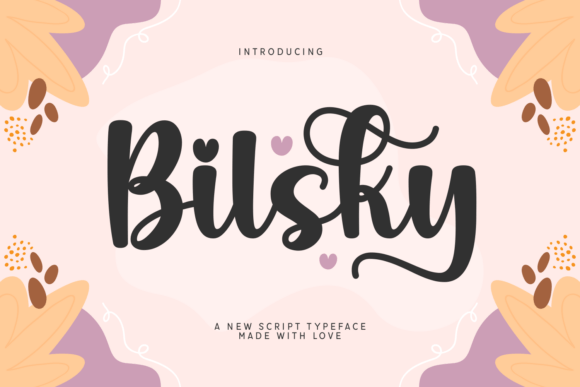
The Bilsky Font: A Bold and Lovely Script to Elevate Your Designs
I’ll never forget the moment I stumbled upon the Bilsky font. I was working on a wedding invitation project for a client who wanted something that exuded warmth and elegance. As I scrolled through my font library, I found myself stuck. That’s when I discovered Bilsky, and it was love at first sight! 💕 The smooth, flowing letters instantly captured the essence of what my client was looking for. In this article, I’ll share my experience with the Bilsky font, its features, and how to make the most of it in your designs.
An Honest Review of Bilsky Font
What I Love About Bilsky ✨
- ✅ Smooth and flowing letters: Bilsky’s script font features beautiful, connected letters that give your text a personal touch.
- ✅ Playful yet elegant: This font strikes the perfect balance between playfulness and sophistication, making it suitable for various design projects.
- ✅ Highly versatile: Bilsky can be used for invitations, greeting cards, branding, and more.
- ⚠️ Limited use in body text: Due to its script nature, Bilsky might not be the best choice for lengthy body text. It’s better suited for headings or short paragraphs.
- ⚠️ Requires attention to spacing: As with any script font, it’s essential to adjust the spacing between letters to ensure optimal readability.
The Designer Inspiration Behind Bilsky
The Bilsky font was designed with the intention of creating a beautiful, elegant script font that captures the warmth and charm of handwritten text. The designer aimed to create a font that would be perfect for creative projects, such as invitations, greeting cards, and branding. With its smooth, flowing letters and playful yet elegant style, Bilsky is sure to become a favorite among designers and crafters alike.
Q: What type of projects is Bilsky best suited for?
Bilsky is perfect for creative projects, such as invitations, greeting cards, branding, and more. Its elegant and playful style makes it suitable for a wide range of designs.
Q: Is Bilsky a difficult font to read?
No, Bilsky is not a difficult font to read. Its smooth, flowing letters and clear design make it easy to read, even at smaller sizes.